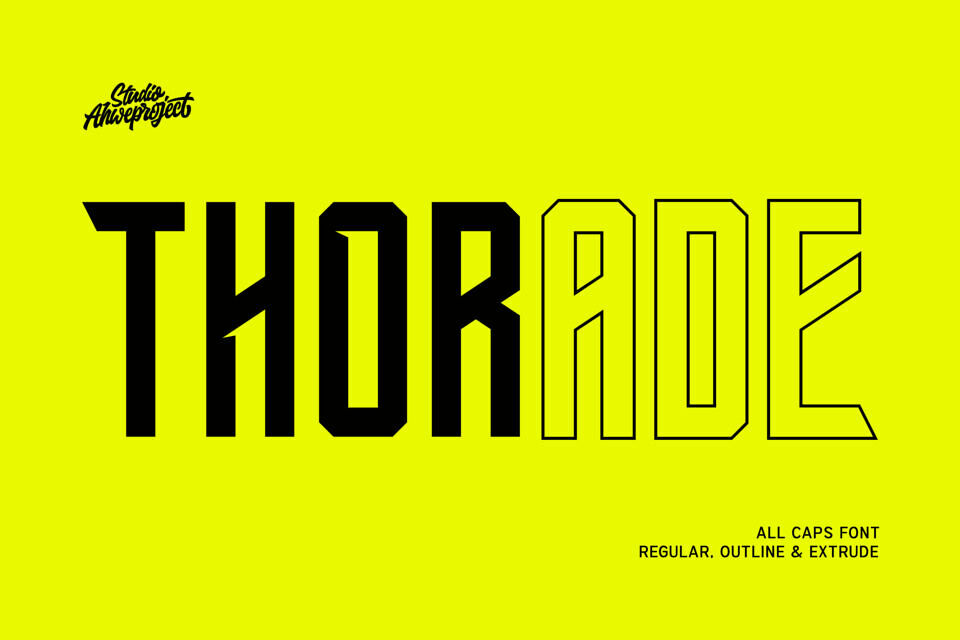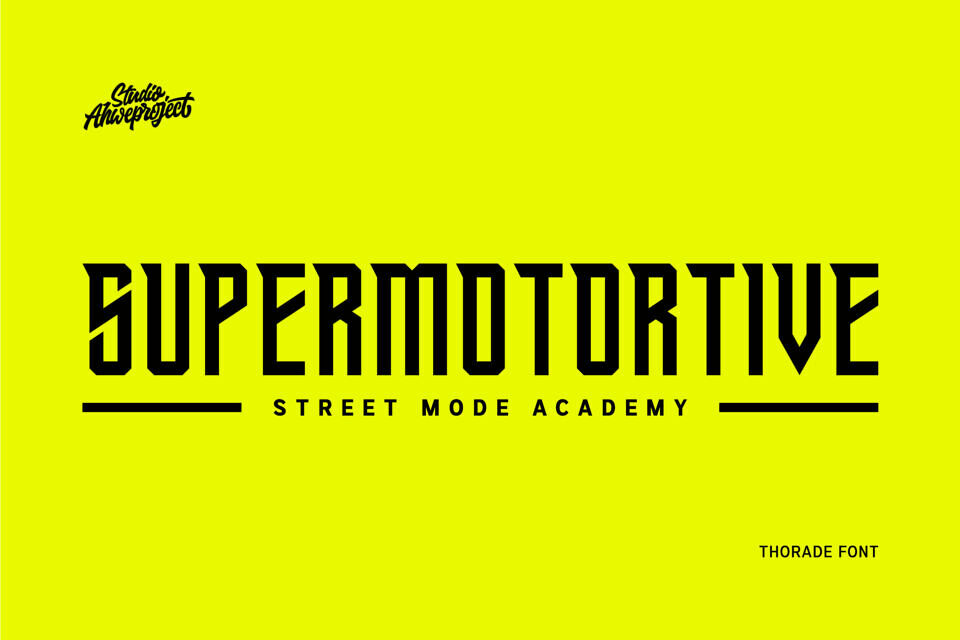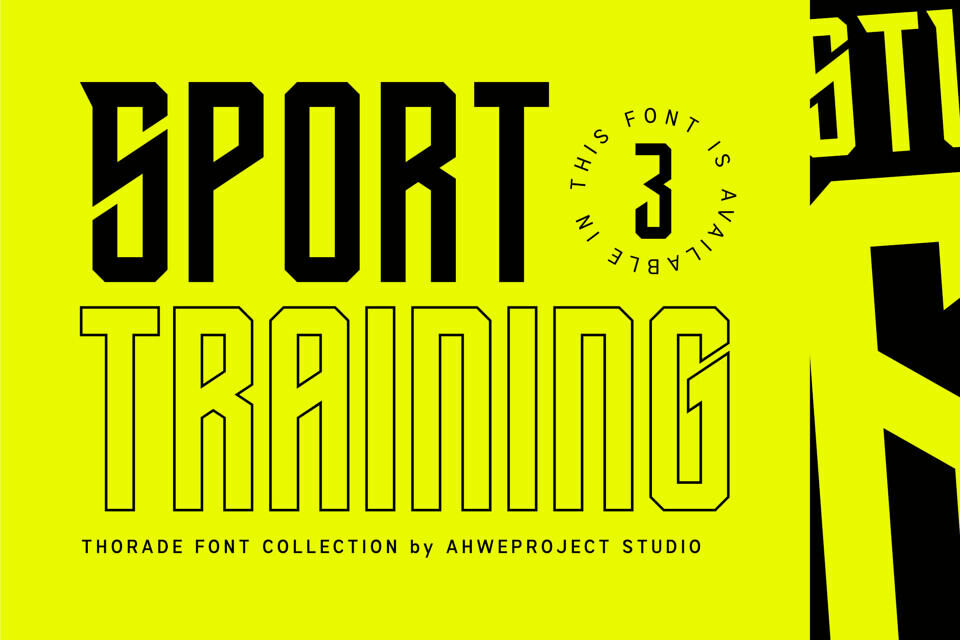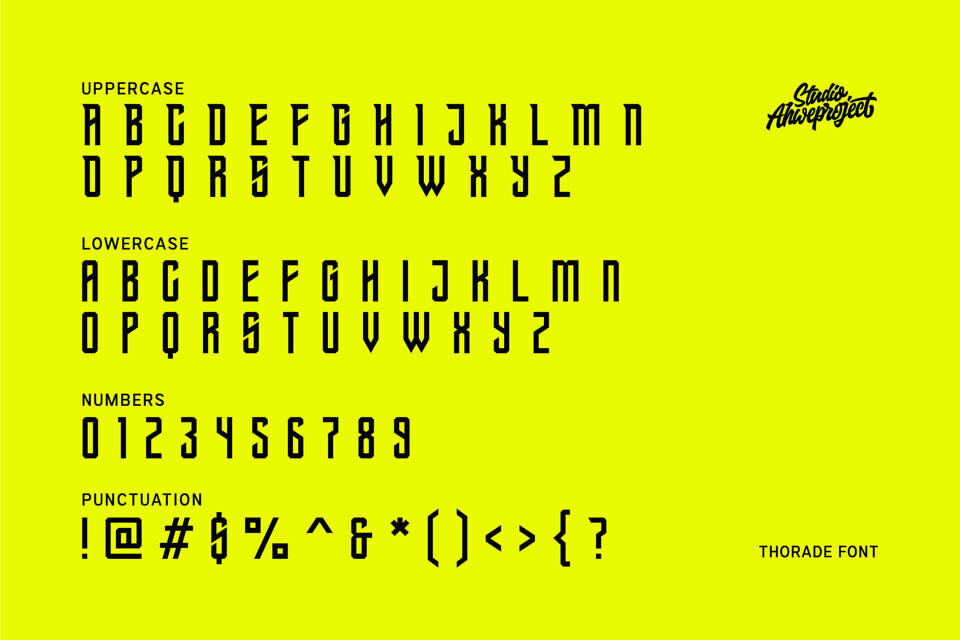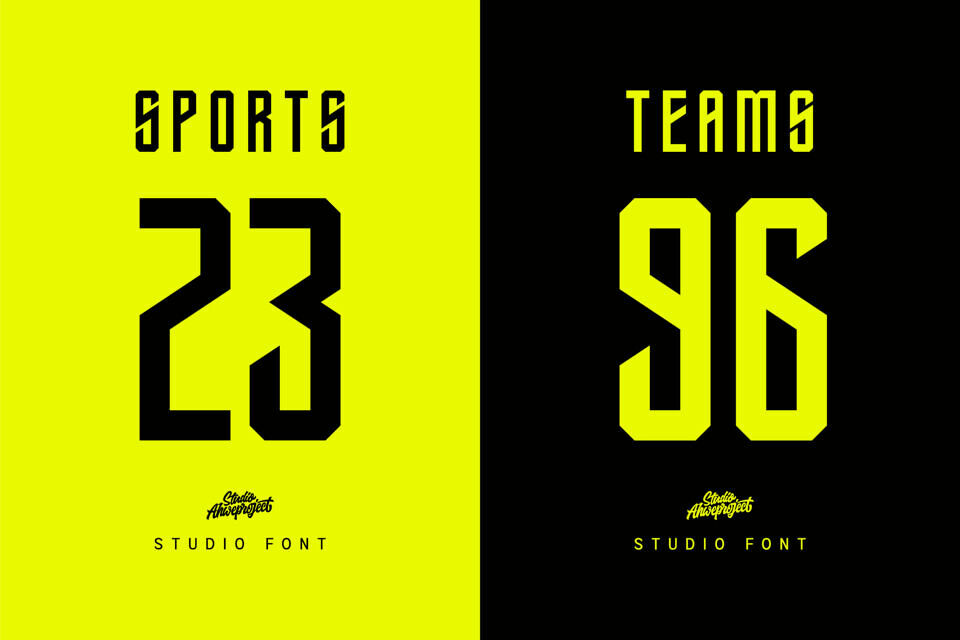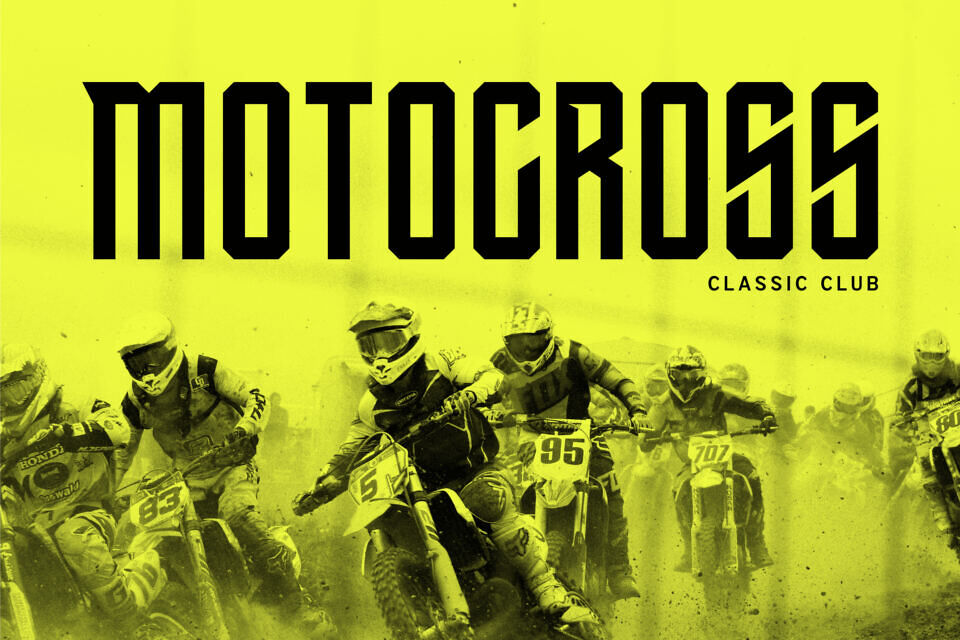
Thorade Font
Thorade is a powerful all-caps display font built to dominate headlines. Inspired by athletic typography and modern sports branding, this typeface delivers strong geometric shapes, sharp angles, and a confident presence that instantly grabs attention.
Designed for impact, Thorade comes in Regular, Outline, and Extrude styles, giving you flexibility to create layered effects, dynamic depth, and eye-catching compositions. Whether you’re designing sports logos, streetwear graphics, posters, esports branding, or bold social media content, this font ensures your message stands out.